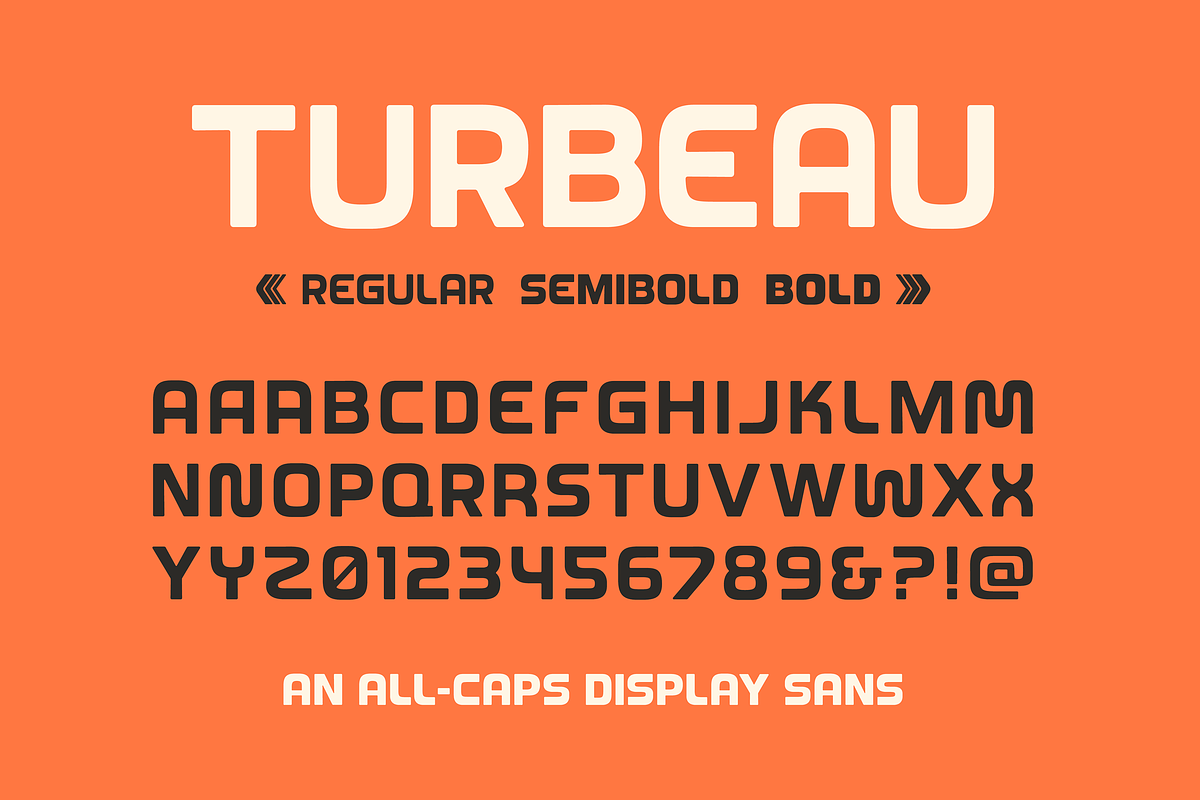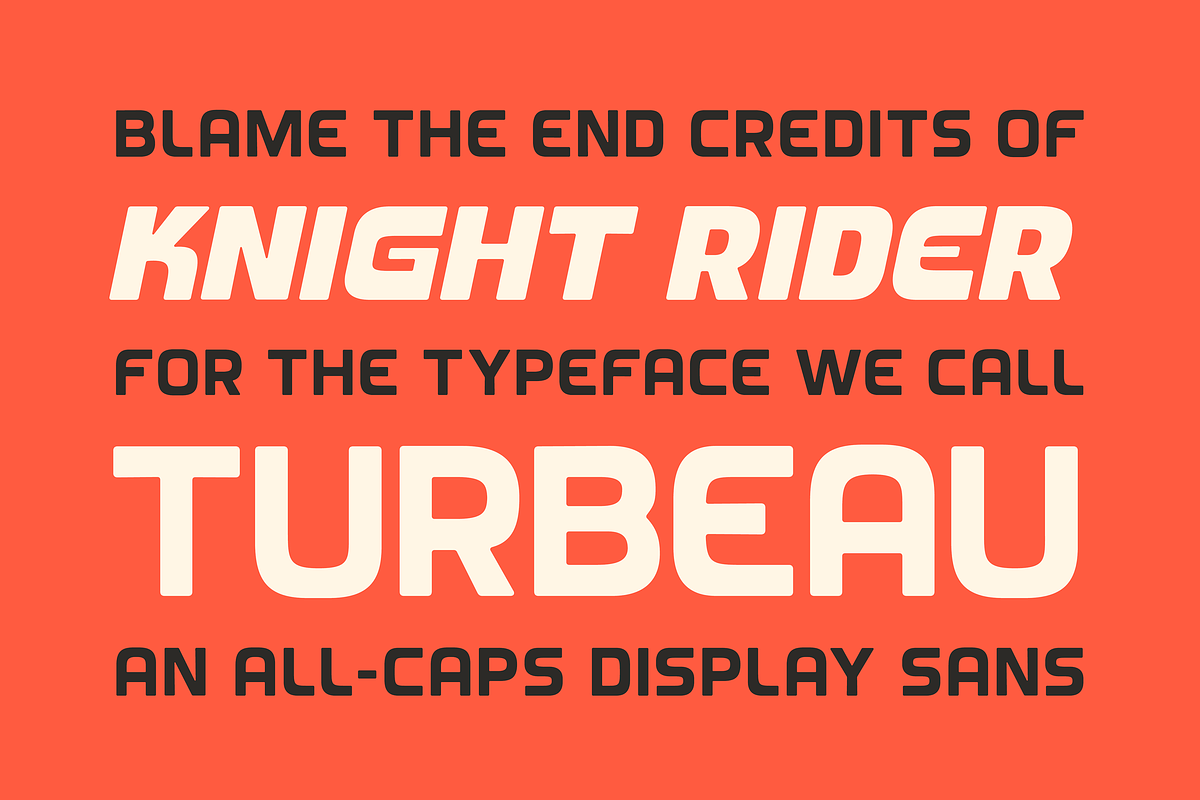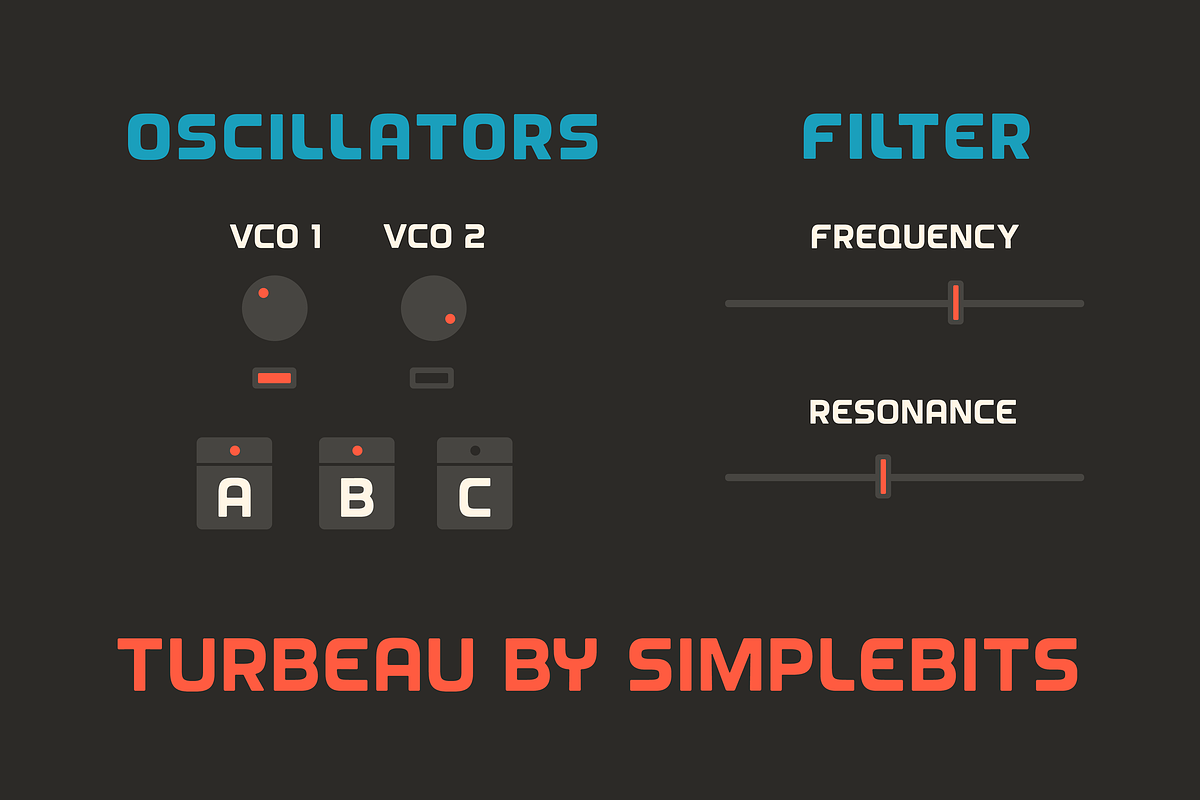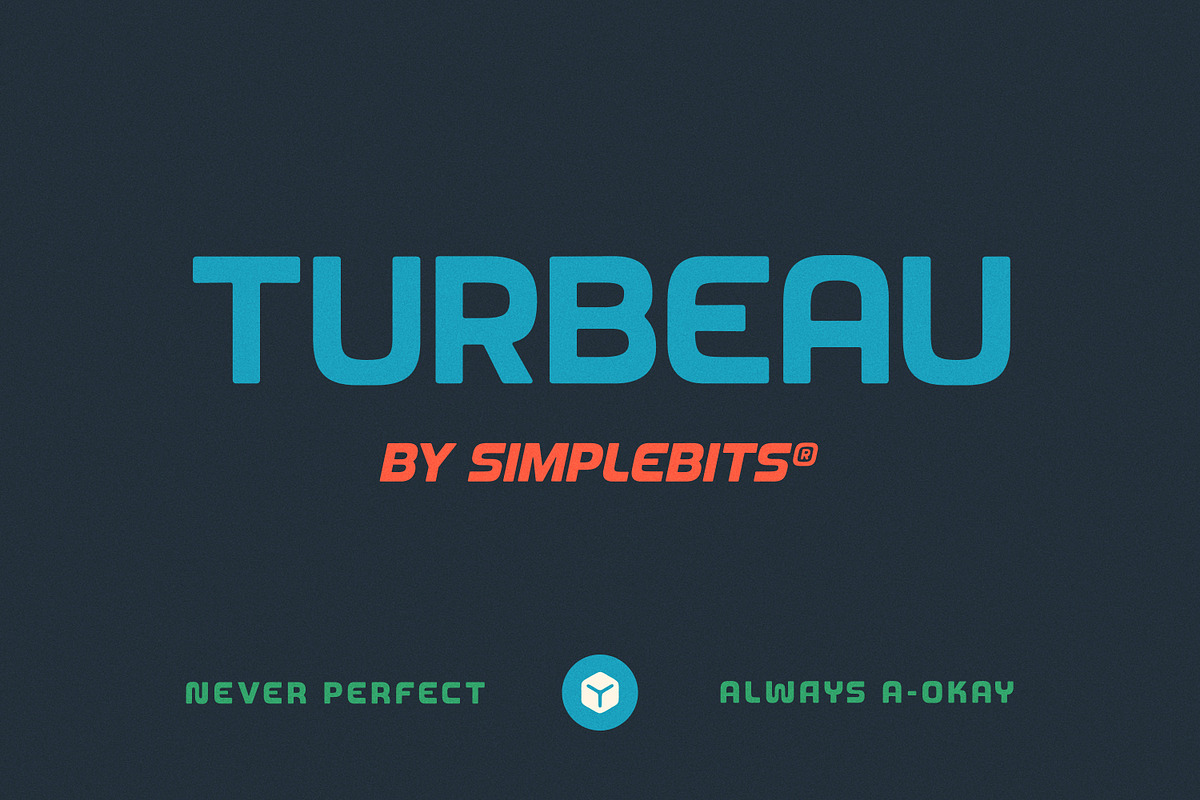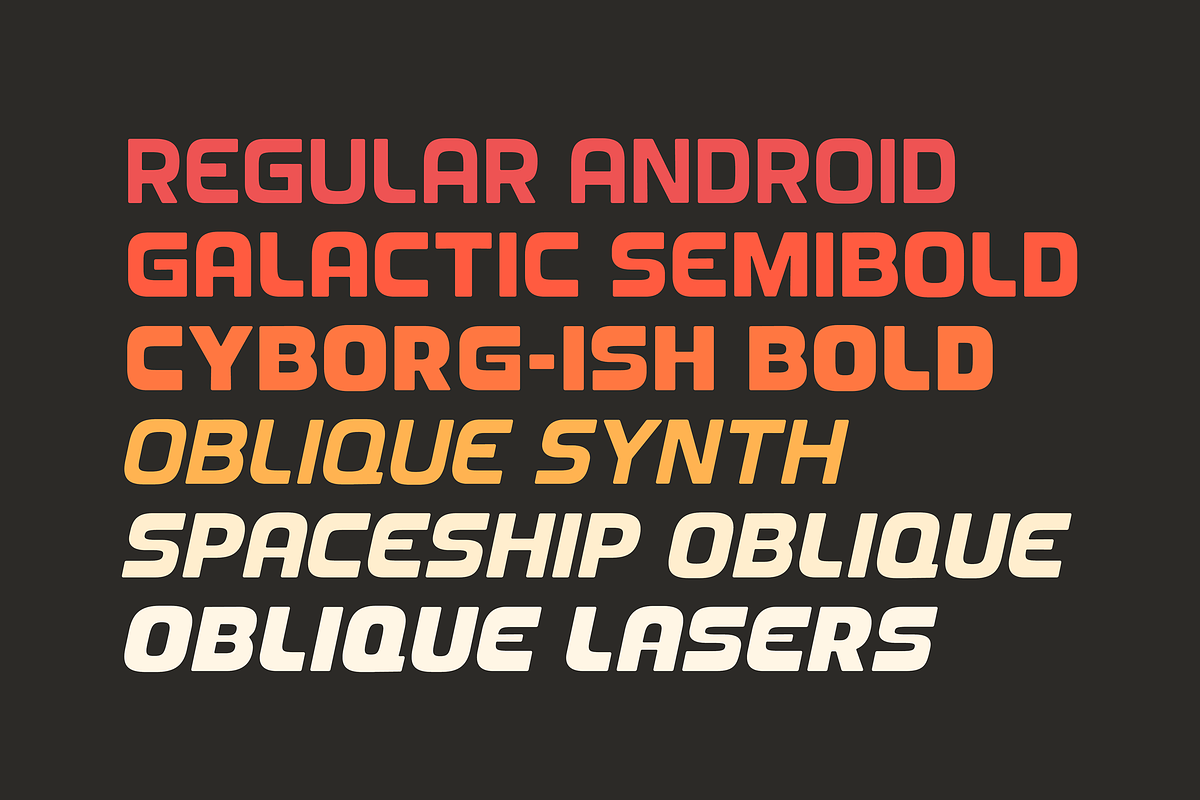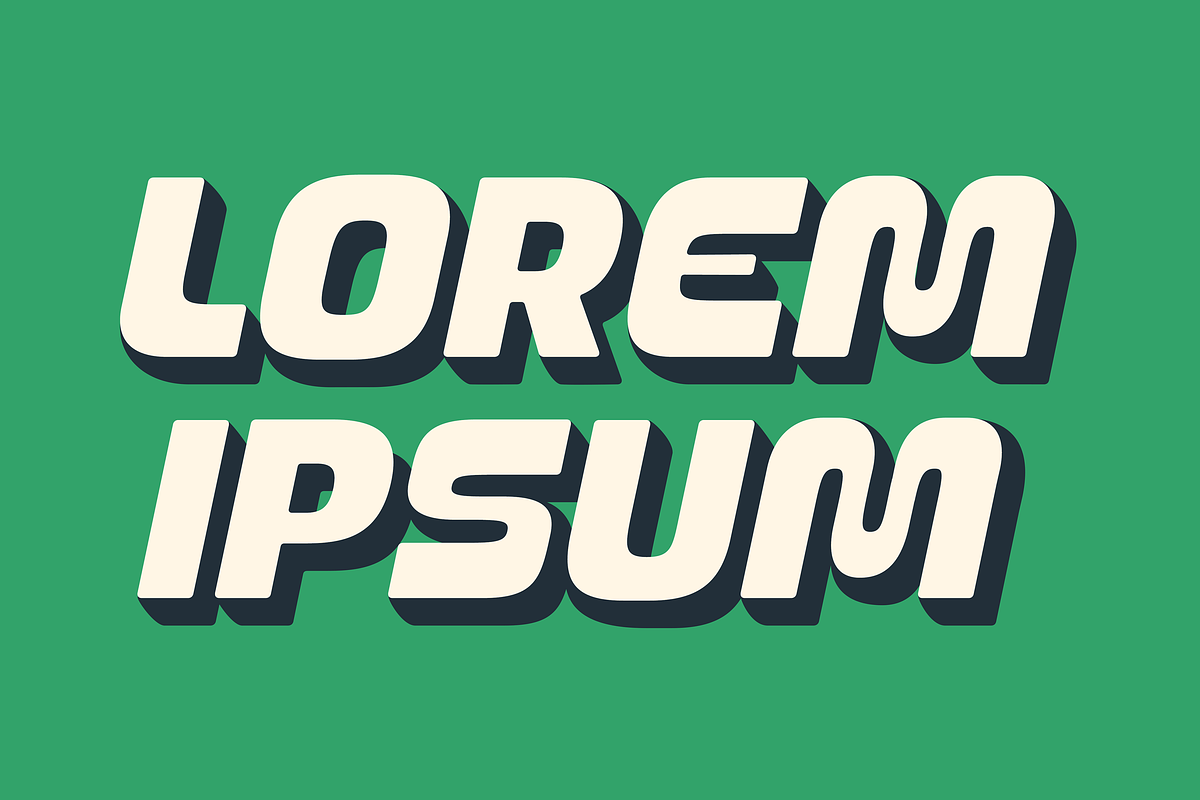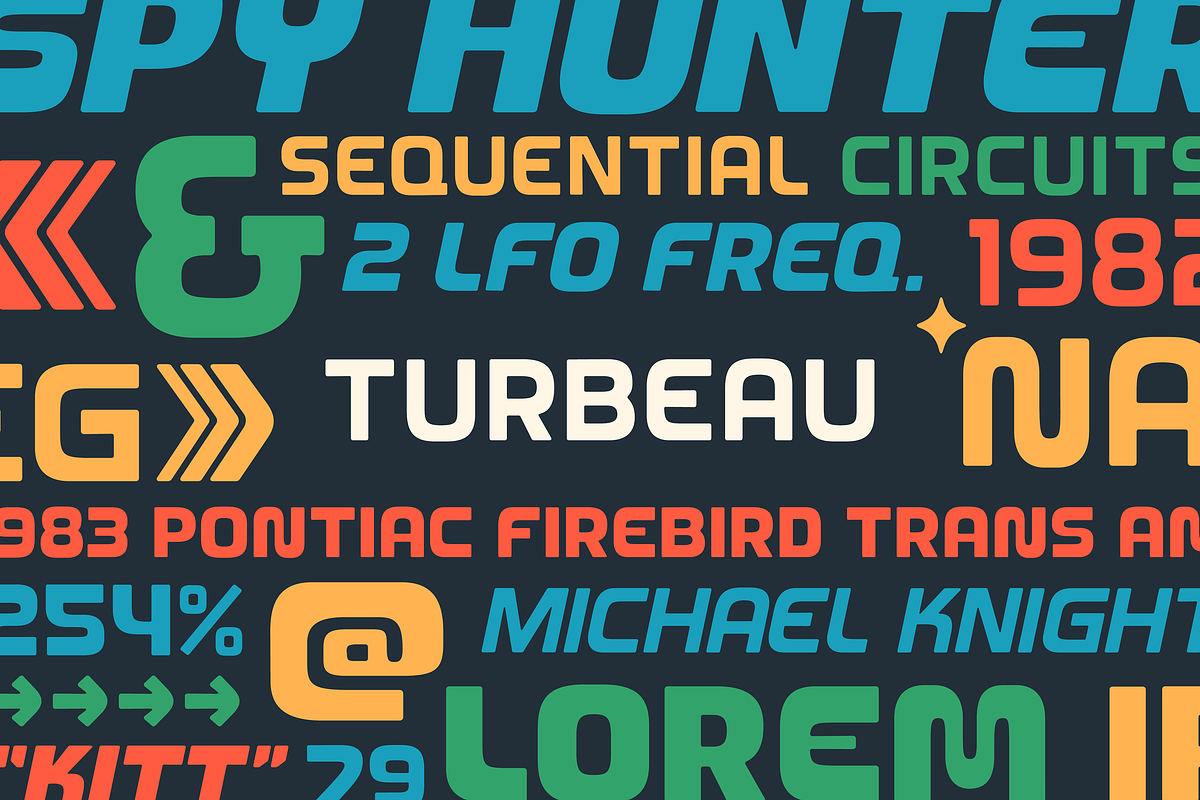
Turbeau — Retro-futuristic font
Years (decades?) ago, I remember seeing the end credits of one of my favorite shows from the 1980s, Knight Rider, and was immediately struck by the typeface. More recently, I realized it might be the same font that adorns the control panel my beloved Sequential OB-6 synth (It may very well be Handel Gothic).
I set out to create something fresh with those inspirations in mind: A curvy, retro-futuristic, all-caps display that gets funky at heavier weights—with some worm-y alternates for letters like M N and W. Letterforms that are uniform almost monoline at Regular weight—but with some increasing, character-building contrast at Semibold and Bold weights.
Turbeau includes 3 weights: Regular, Semibold, and Bold. And we just had to make Oblique versions of those weights for maximum forward overdrive.